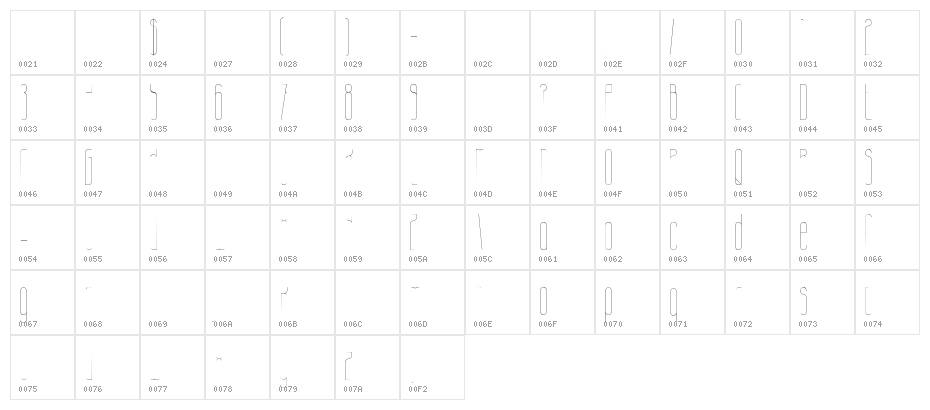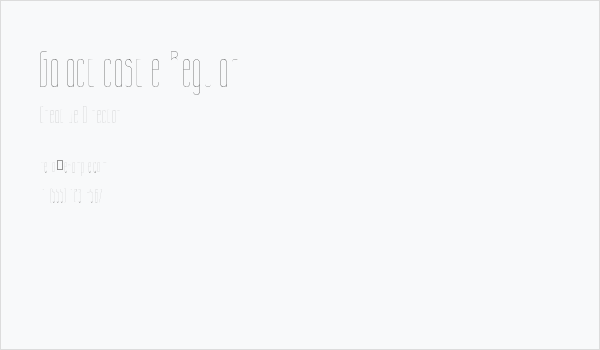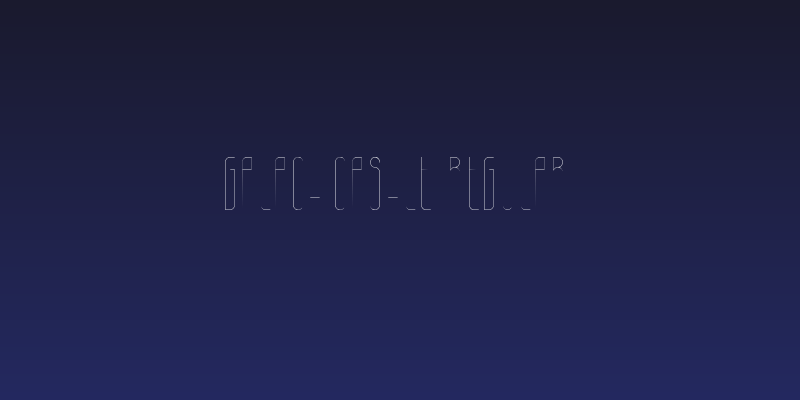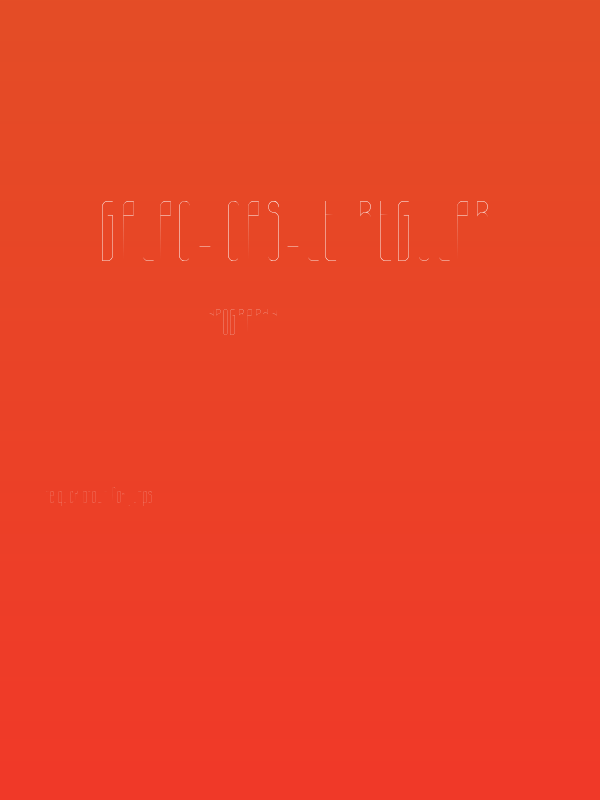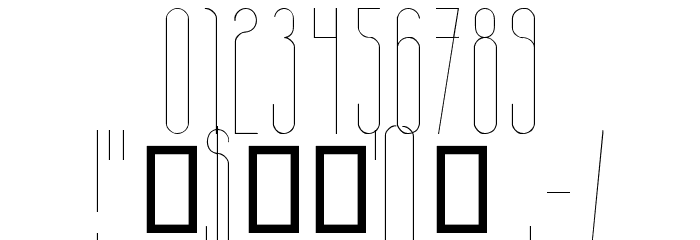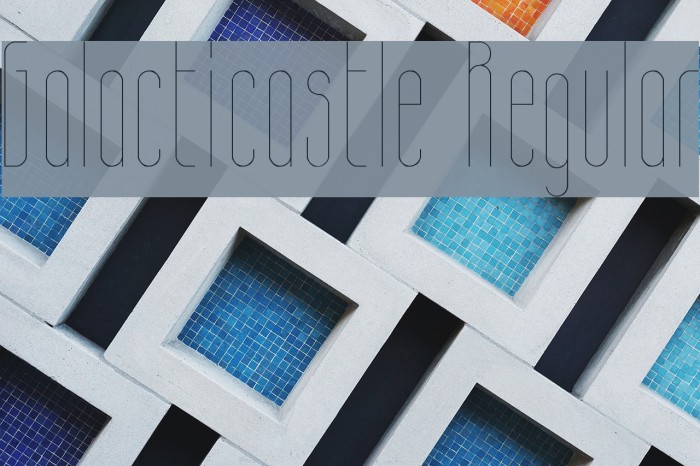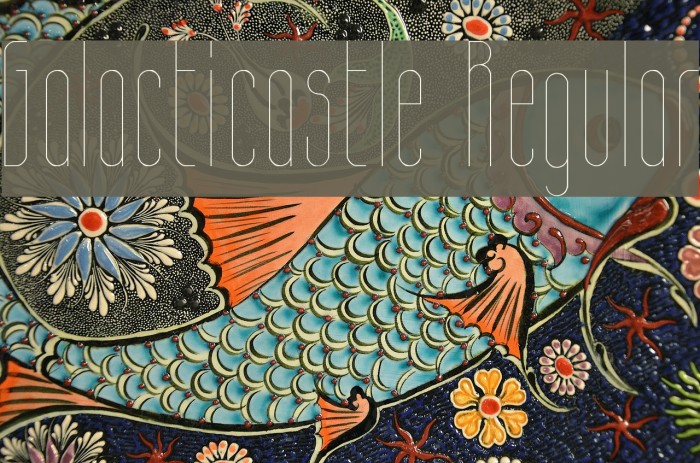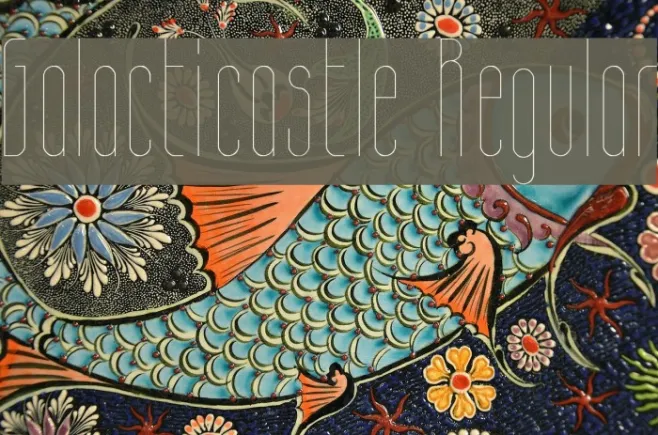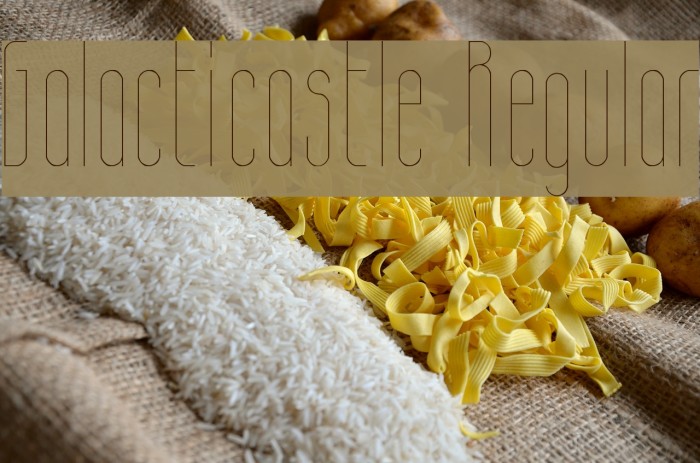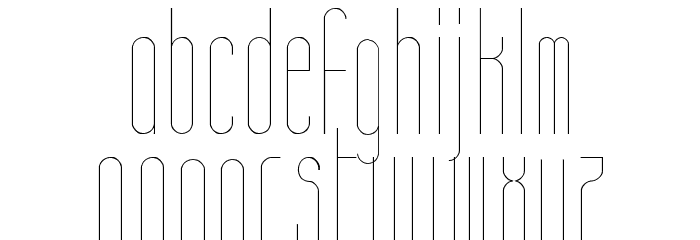
Galacticastle Regular Font
Galacticastle Regular Description
This font features a futuristic and minimalist design with ultra-thin lines and a tall, narrow structure. The characters are elongated and sleek, giving off a modern and sophisticated vibe. The uppercase and lowercase letters maintain a consistent height, contributing to a uniform appearance. The numbers and special characters follow the same design principles, ensuring cohesion throughout the font. The overall aesthetic is clean and elegant, making it suitable for contemporary and avant-garde projects.
| Proposed Projects | Ideal for sci-fi themed projects, modern branding, tech-related designs, and minimalist posters. |